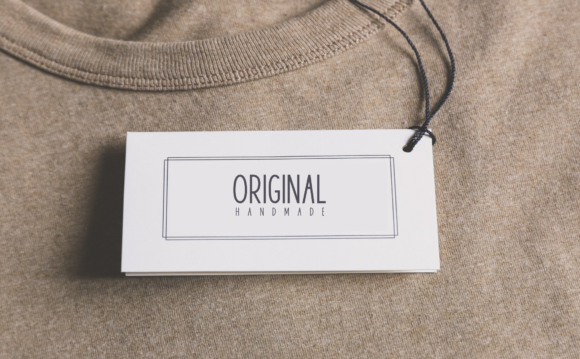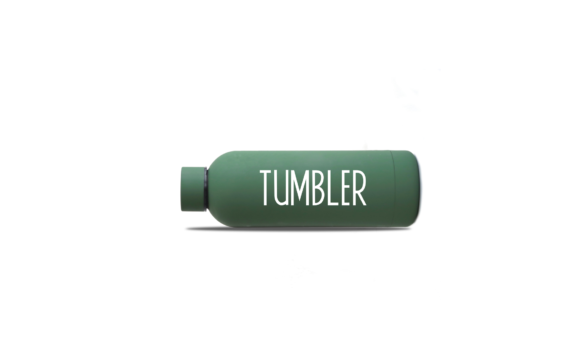
Christmas MInimalist Font
Christmas MInimalist is a thin and tall sans serif font. It can easily be matched to an incredibly large set of projects, so add it to your creative ideas and notice how it makes them stand out!